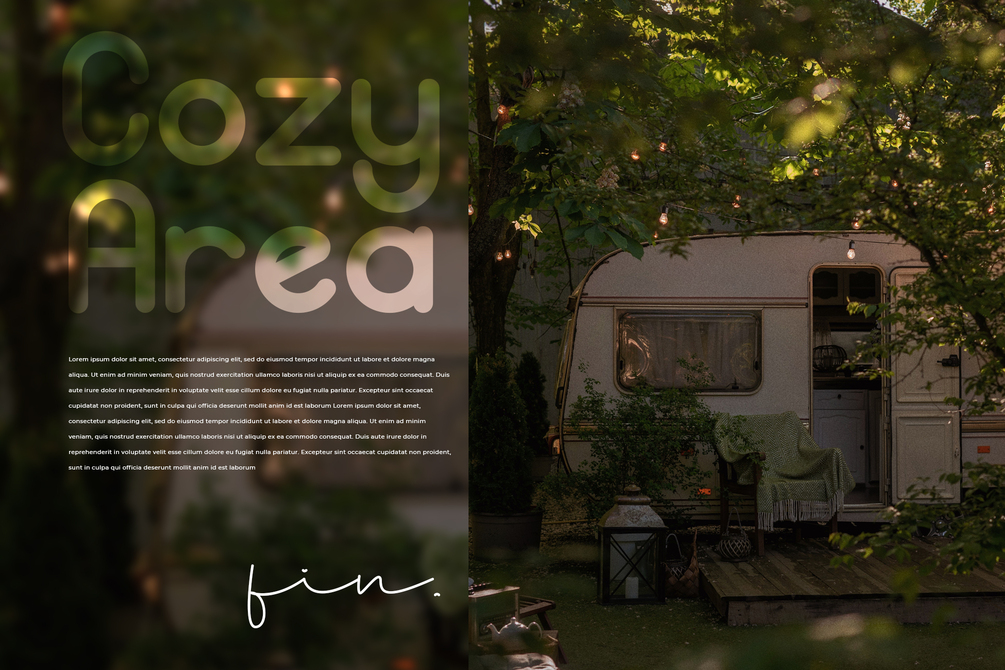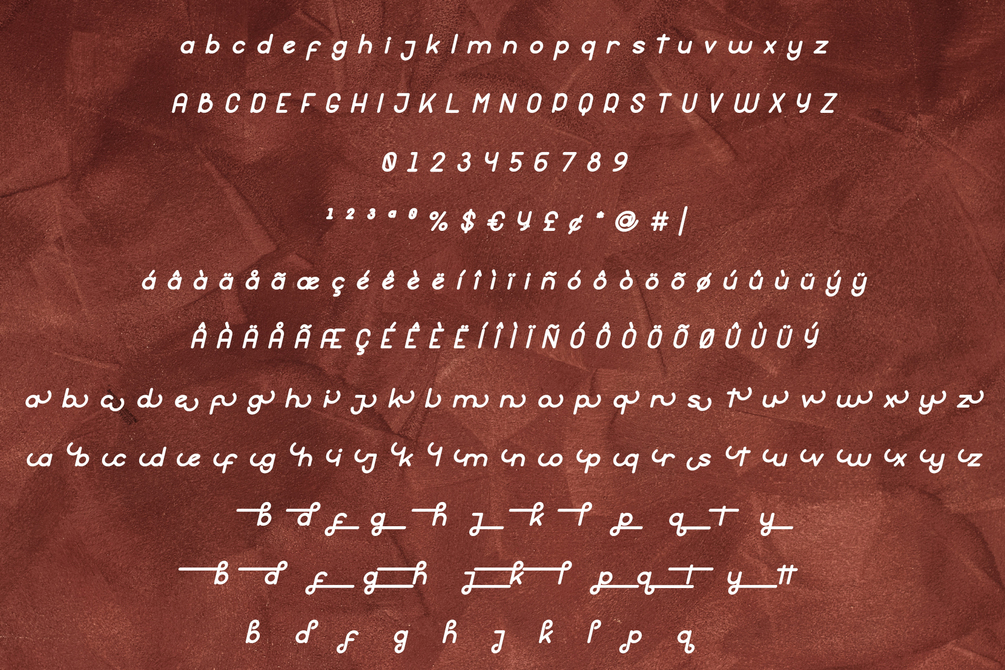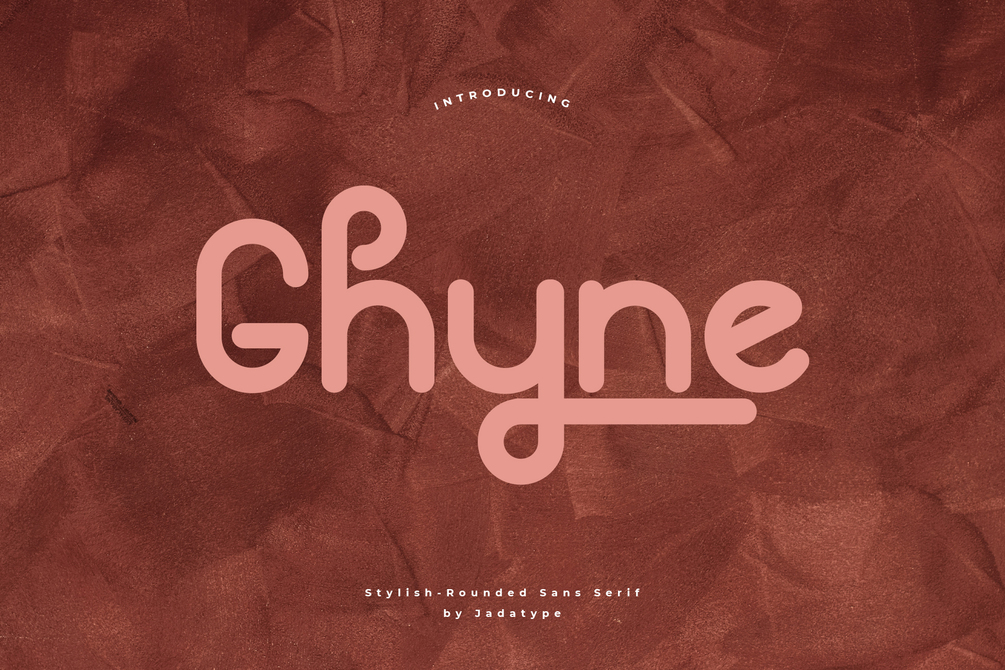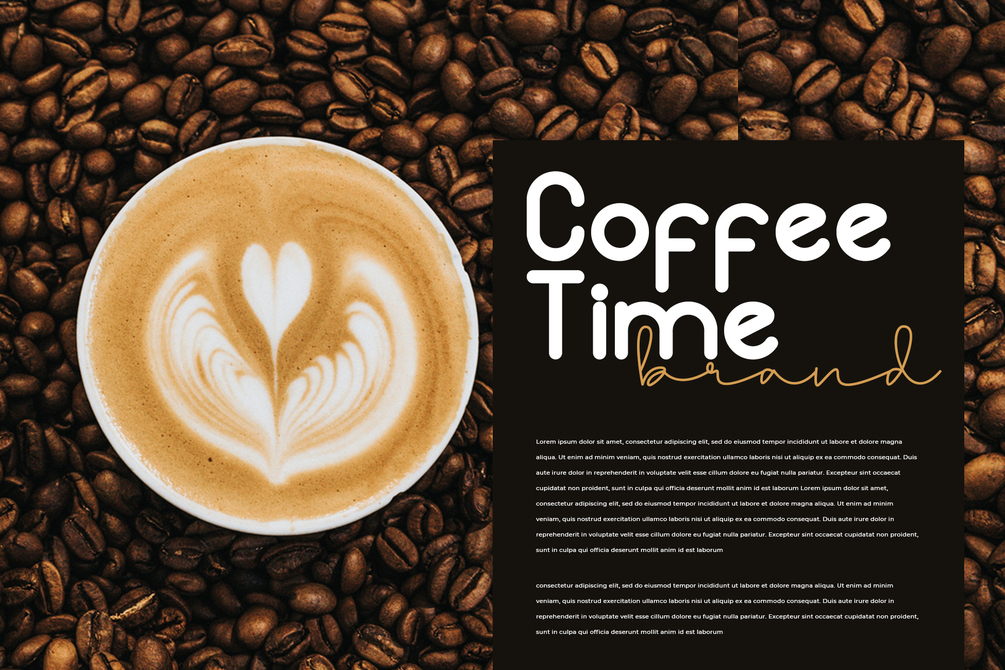
Ghyne Font
Ghyne is a font with stylish rounded sans serif. suitable for branding, social media, products, and so on. contains standard English letters, numbers, punctuation, and several accents that support multilingualism.